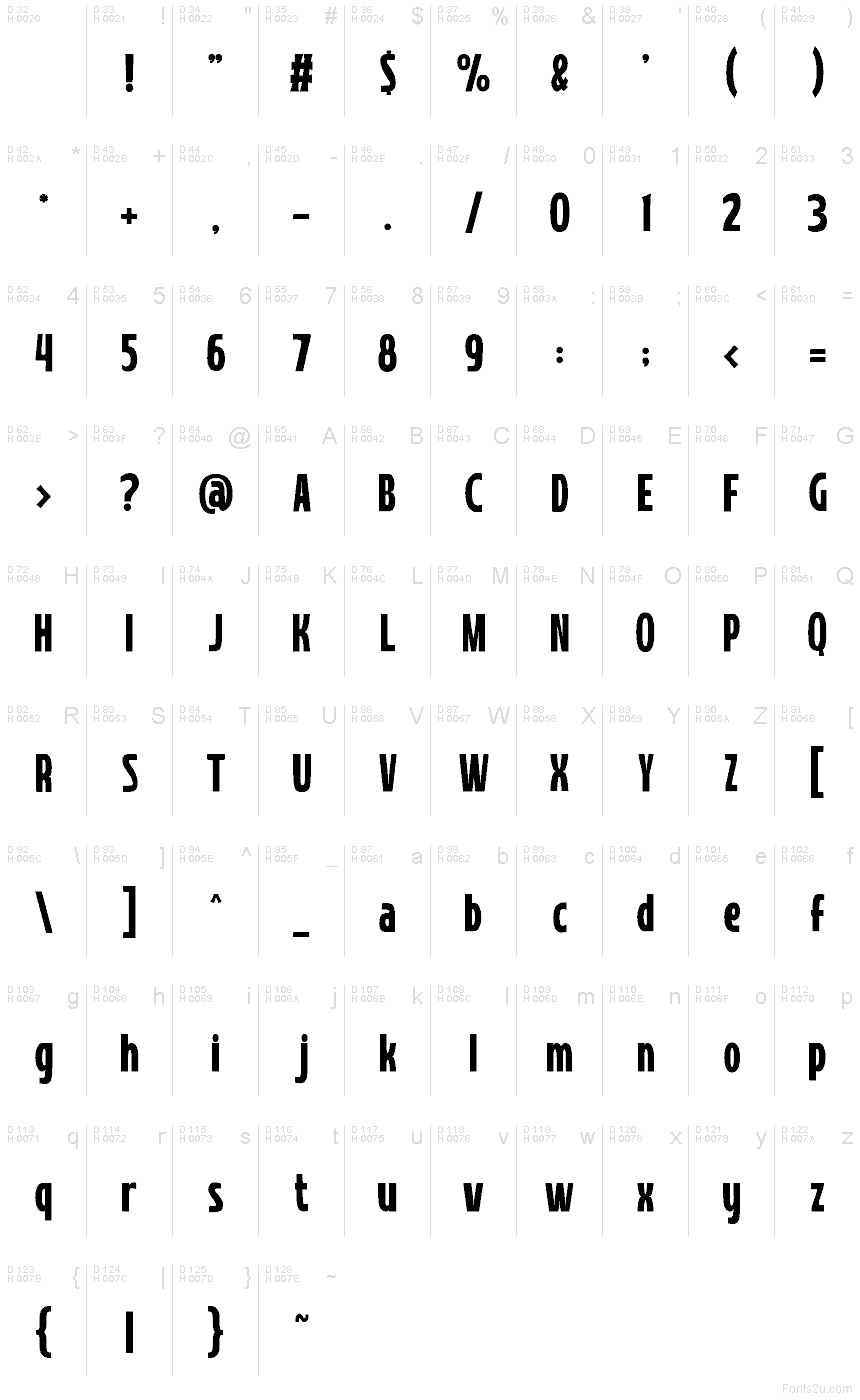
Stepon Thin
Stepon Thin font by PutraCetol Studio is a free condensed display typeface that solves the tight-space headline dilemma. The Stepon family’s tall, narrow shapes pack words in without feeling cramped, thanks to soft, swollen curves and gently pinched strokes that keep the texture lively. Letters feel inky and sculpted rather than mechanical, so you get punchy impact without shouting.
Using Stepon Thin, you can stack long titles on posters, product packaging, menus, event signage, social thumbnails, and sticker-style badges with room to spare. Its even rhythm and smooth tapering make short phrases read fast and stick in memory. Pair this free font with a neutral grotesk for body copy, and bump tracking slightly for big, airy headlines.